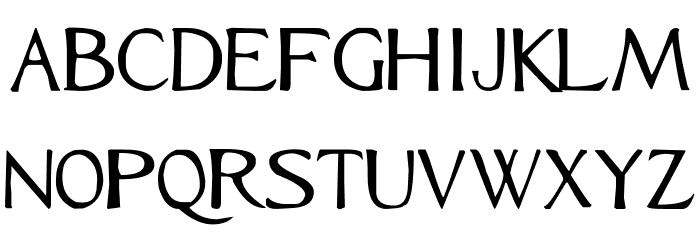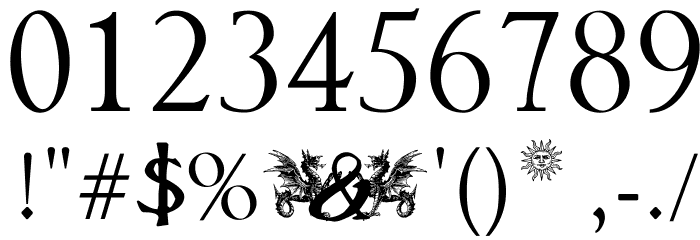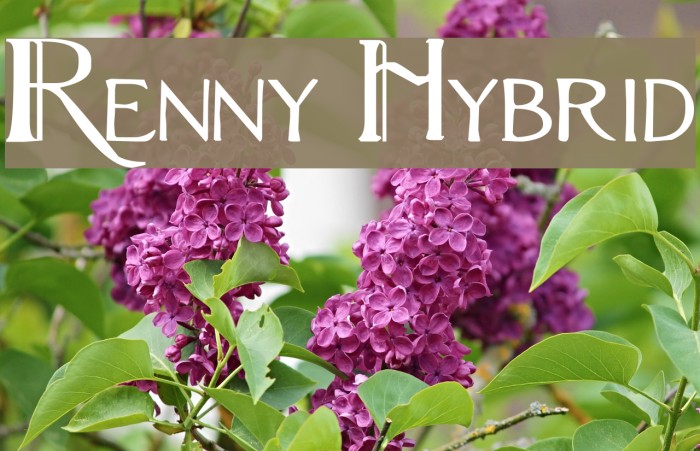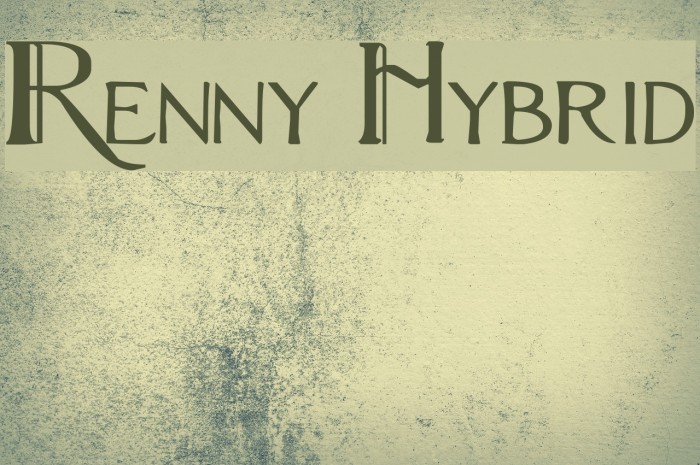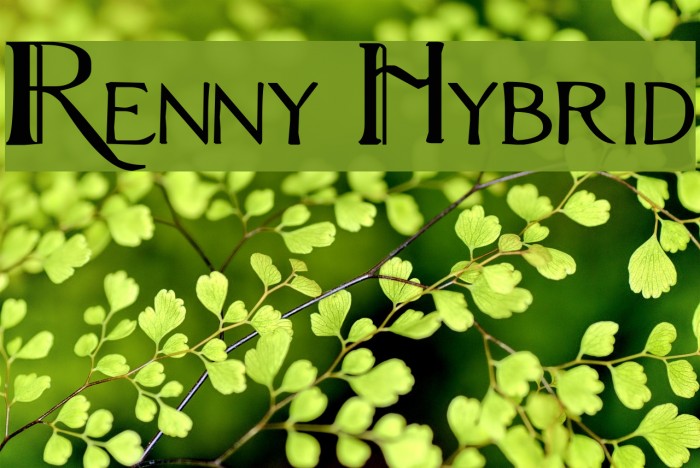
Renny Hybrid Font
This font presents a unique blend of classic and modern elements, featuring a decorative style with intricate details. The uppercase letters exhibit a high level of ornamentation, with flourishes and extended serifs that give a sense of elegance and sophistication. The lowercase letters are more subdued, maintaining a balance between readability and style. Numbers are bold and clear, ensuring legibility. Special characters are creatively designed, adding a whimsical touch to the overall aesthetic. This font is ideal for projects that require a touch of class and creativity, such as invitations, branding, and editorial design.
A decorative font combining classic elegance with modern flair.
- Proposed Projects: Ideal for wedding invitations, luxury branding, editorial layouts, and artistic posters.
- Overall Style: Classic, Decorative
- Use Case: Headlines, Logos, Invitations